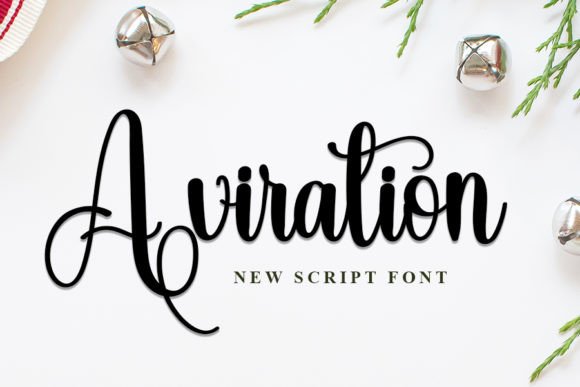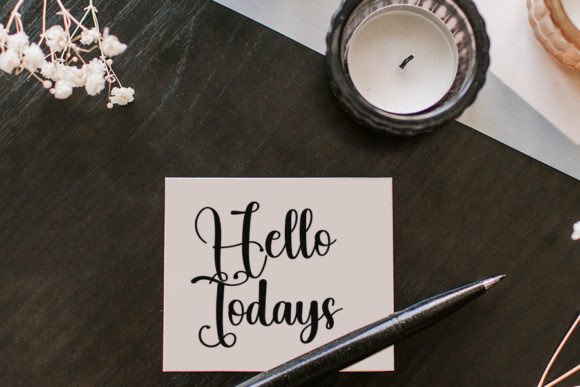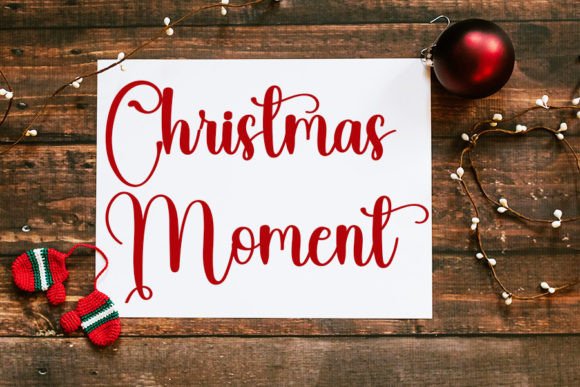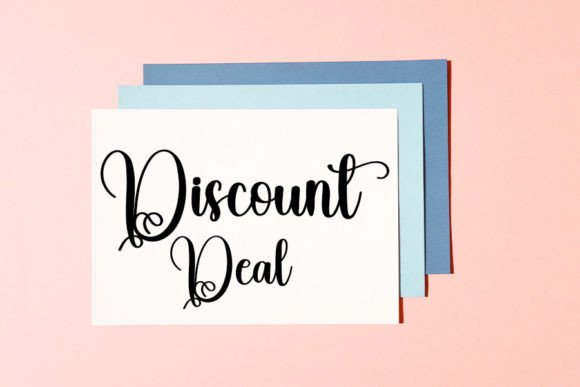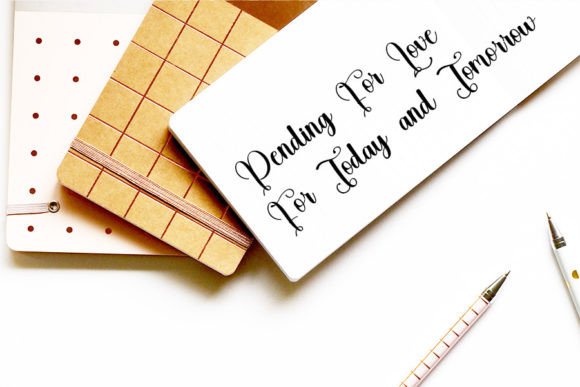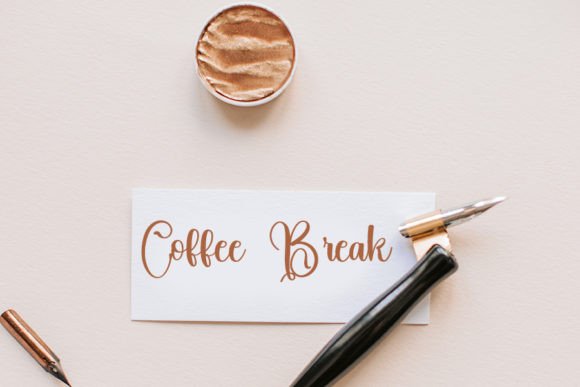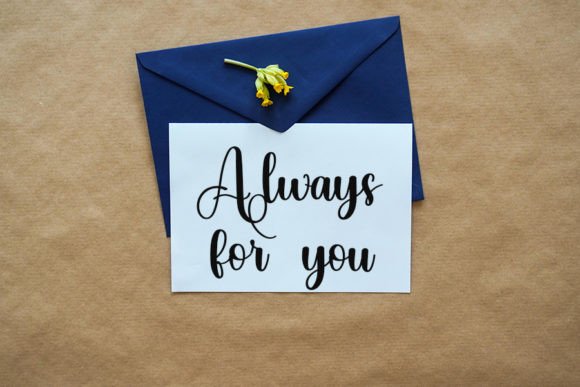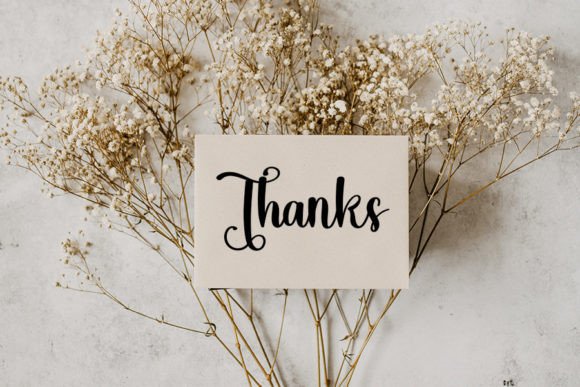
Aviration Font
About Aviration Font
**Aviration: Casual Elegance for Versatile Designs**
Meet “Aviration,” a casual and elegant script font designed to capture hearts with its incredibly versatile style. This font is the perfect choice for creating gorgeous wedding invitations, beautiful stationery, eye-catching social media posts, and a wide range of other design projects. With PUA encoding, accessing all the glyphs and swashes is a breeze, allowing you to infuse your designs with a touch of effortless elegance.
**Casual and Elegant Script:**
Aviration strikes the perfect balance between casual and elegant. Its script style adds a touch of sophistication while maintaining a versatile and approachable aesthetic.
**Perfect for Wedding Invitations:**
Create stunning wedding invitations with Aviration. The font’s elegance enhances the romantic and special feel of wedding materials, setting the tone for a memorable celebration.
**Beautiful Stationery Art:**
Design beautiful stationery art effortlessly with Aviration. The font’s flowing script lends itself well to creating artistic and personalized stationery for various occasions.
**Eye-Catching Social Media Posts:**
Make your social media posts stand out with the eye-catching style of Aviration. Whether you’re sharing quotes, announcements, or promotions, this font adds a touch of elegance to your visuals.
**Versatile Style for Various Projects:**
Aviration’s versatile style makes it suitable for a wide range of projects. From invitations to social media graphics, this font adapts seamlessly to diverse design needs.
**Effortless Access to Glyphs and Swashes:**
**Create Gorgeous Designs:**
Let Aviration be the key to creating gorgeous designs. Whether you’re a graphic designer, event planner, or social media enthusiast, this font adds a layer of sophistication to your creations.
**Infuse Elegance into Your Creations:**
Infuse your designs with a touch of elegance using Aviration. Its graceful script and casual charm bring a timeless quality to your creative projects.
**Capture Hearts with Versatility:**
Aviration is designed to capture hearts with its versatility. From formal occasions to everyday designs, this font adapts to various contexts, making it a valuable asset in your design toolkit.
Aviration is more than just a font; it’s a design asset that effortlessly combines casual charm with elegant script. Let it be the element that enhances the visual appeal of your wedding invitations, stationery, social media posts, and beyond, bringing a touch of timeless elegance to your creative endeavors.